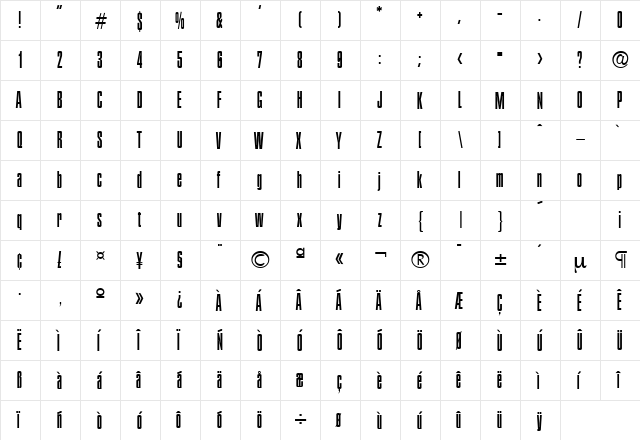
Plakette-Serial-Light Regular
Design Context for Plakette-Serial-Light Typeface
Plakette-Serial-Light is a composed and adaptable typeface that performs quietly and consistently across a wide range of design contexts. Its slender proportions lend an understated elegance to any composition.